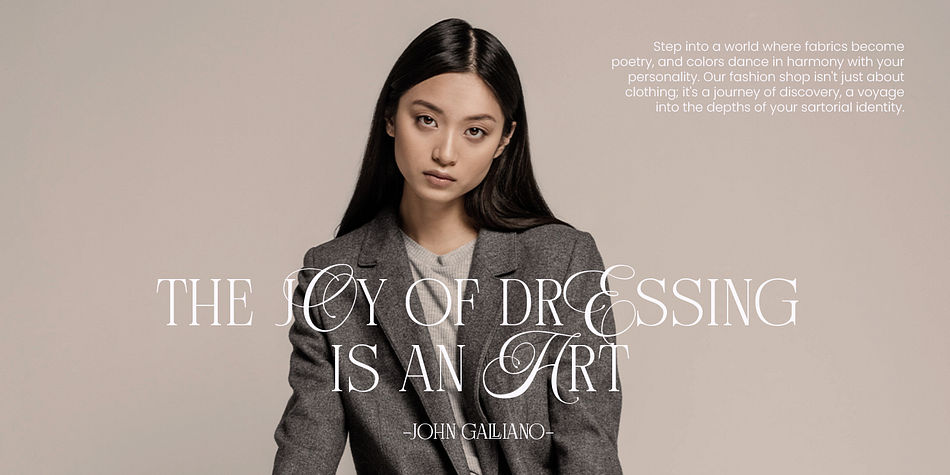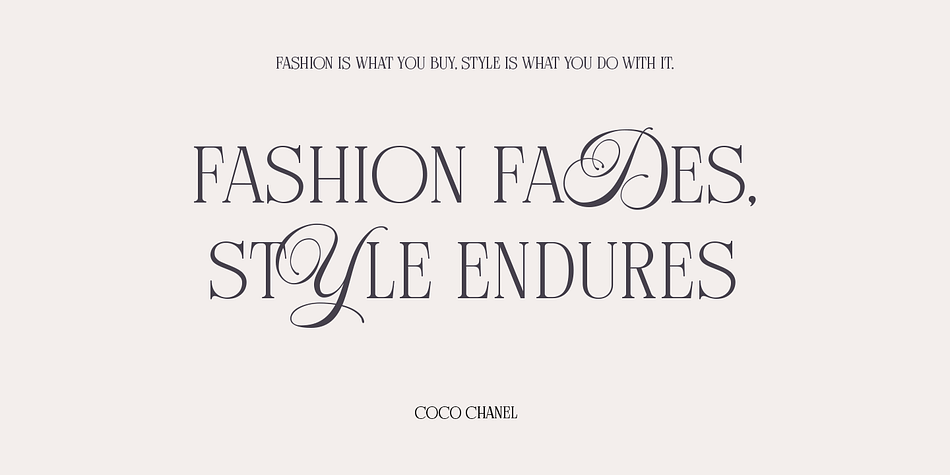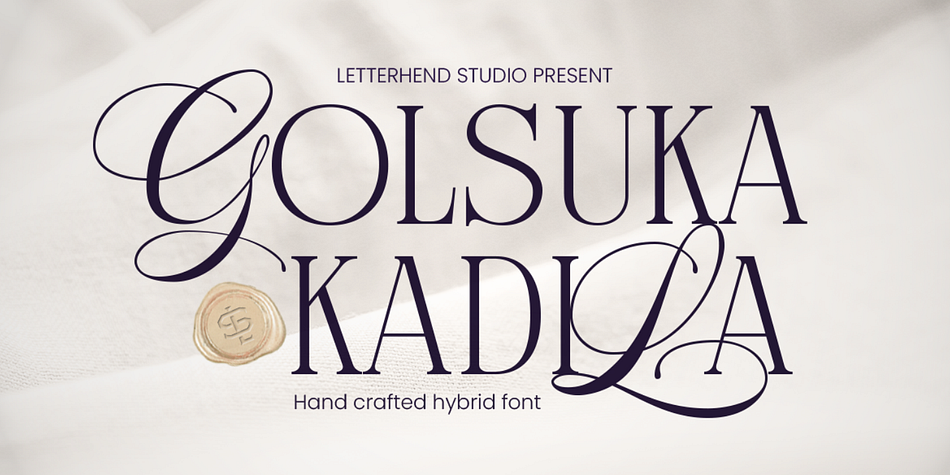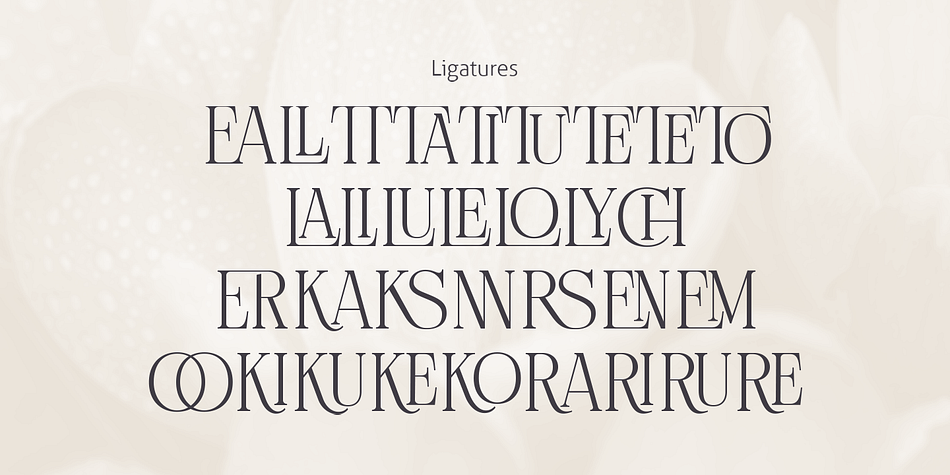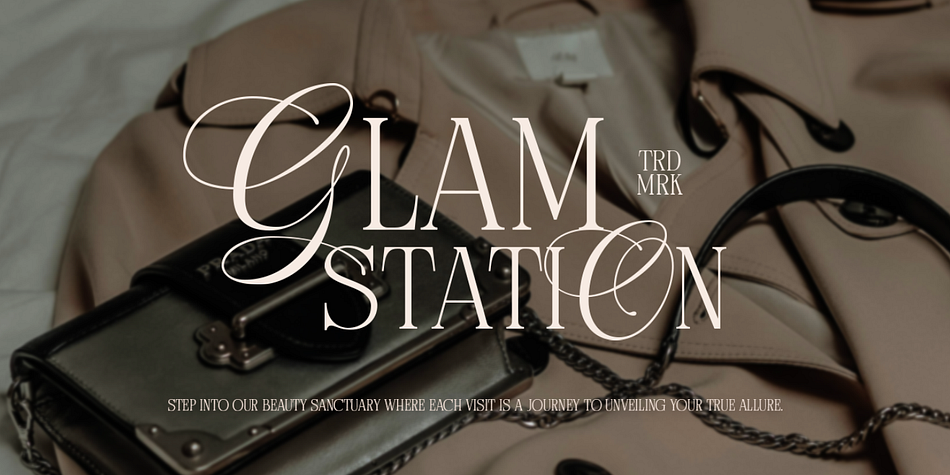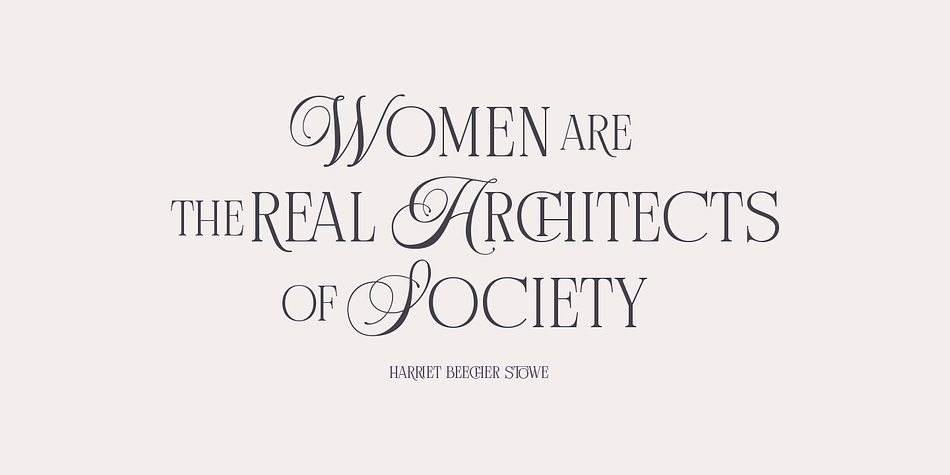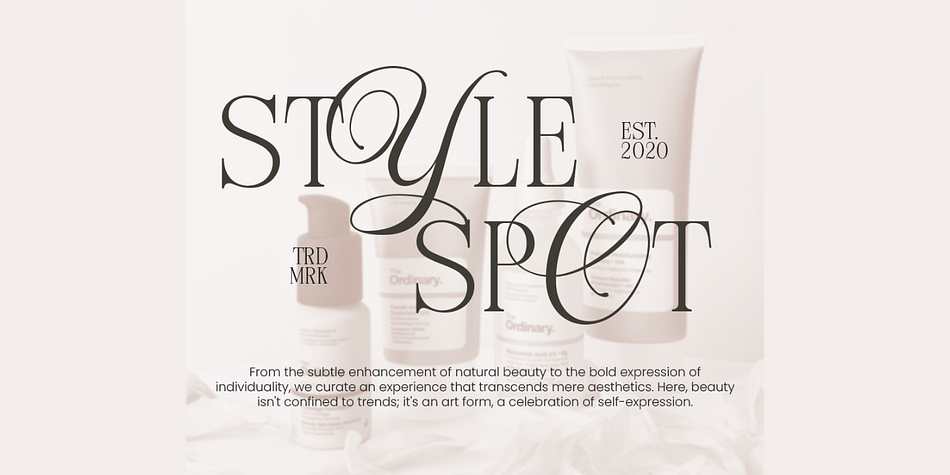
Golsuka Kadila
Designed by Hendry Juanda, Golsuka Kadila is a modern calligraphy font family published by Letterhend Studio.
Meet Golsuka Kadila, a handcrafted serif-script hybrid typeface that blends classic elegance with modern flair. Featuring timeless script uppercase letters and stylish serif lowercase, it’s perfect for everything from invitations and logos to magazines, books, wedding cards, packaging, fashion, and more. Make your designs stand out with this timeless, versatile font.
- Alternates & Ligatures